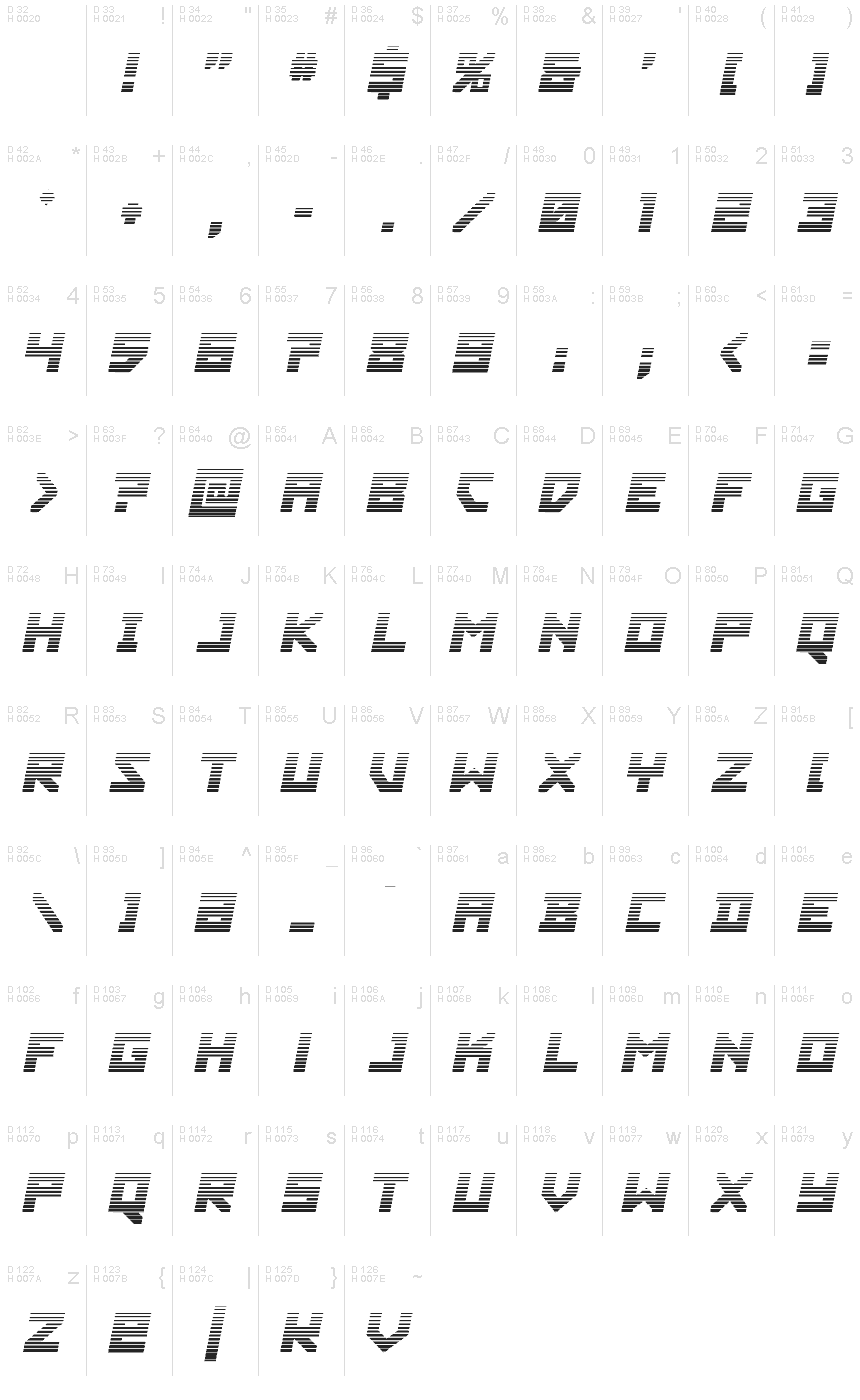
Hibernal Sentry Gradient Ital
A sentry, in the most simple sense, is a guard. It’s a soldier that keeps vigil, a guardian angel that protects and keeps watch. So it’s quite fitting that Hibernal Sentry, designed by Iconian Fonts, is inspired by classic science fiction movie characters and has a futuristic aesthetic. The uppercase and lowercase letters and numerals, as well as the other special characters, come in a sleek and bold set in a gradient style that resembles a futuristic neon light with its sharp points. These elements combine to create an elegant yet bold font that carries an undeniable futuristic and powerful aura.
To ensure you bring this font’s artistic vision to life, you can use it in the title of science fiction books or magazine articles, add it to movie posters and ads, design apparel items, add it to logos for techno and EDM events, and use it for branding projects related to robotics and advanced technologies. You can also apply the font in headlines in websites, create bold cards, and add it to accessories such as mugs and bottles.